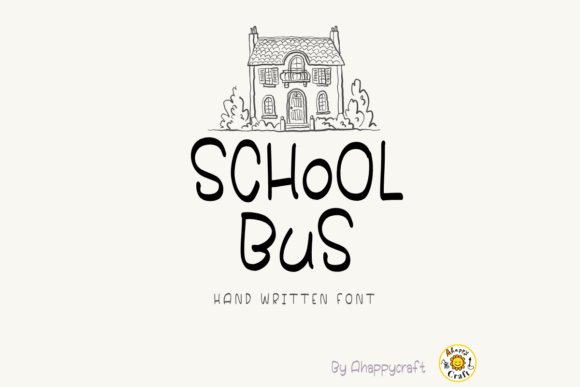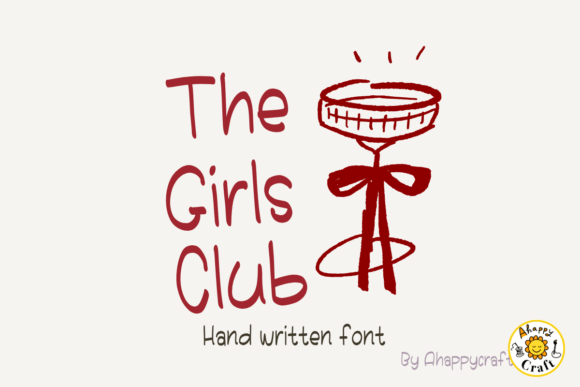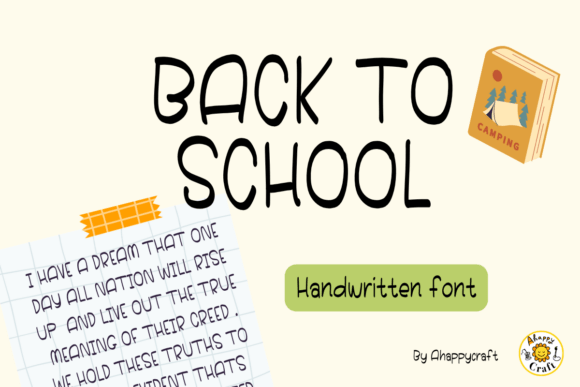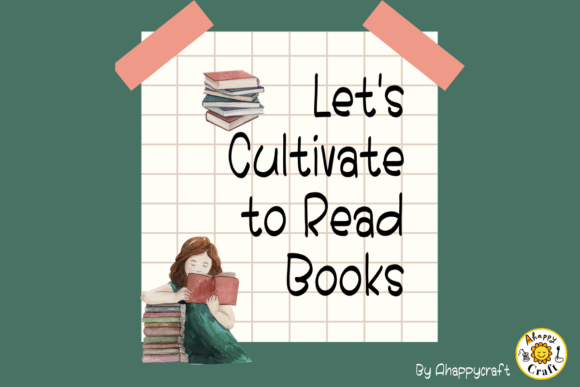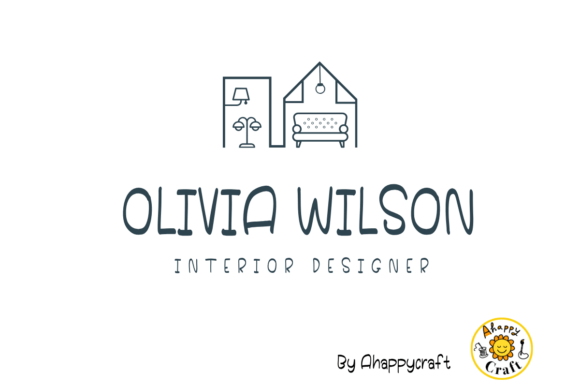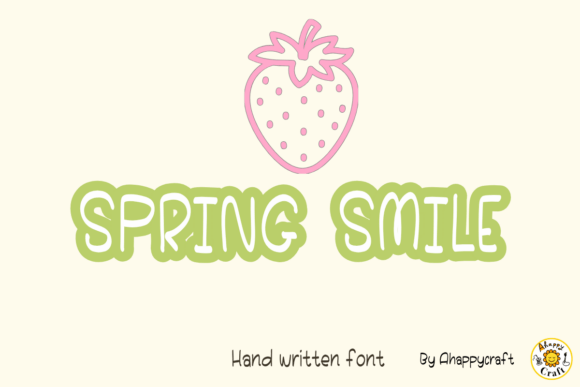
Discover the Joy of Handwritten Fonts
Do you remember the feeling of creating something with your own two hands? The thrill of watching a blank page transform into a work of art, filled with love and personality? For designers and creatives, this feeling is a constant source of inspiration, and it’s exactly what the Artist Day Font embodies.
Artist Day Font is a unique and lovable font style that adds a touch of handmade charm to any project. With its soft, inviting lines, it’s perfect for child-focused and educational projects, such as coloring pages, activity books, and classroom materials. Its versatility and ease of use make it a valuable asset for designers, who can rely on it to add a personal touch to their work.
Artist Day Font Key Features
- Unique Characteristics: This font features a unique, hand-drawn style with intricate details and subtle nuances, making it ideal for artistic and creative projects.
- Character Set: Artist Day Font includes a comprehensive character set, including uppercase and lowercase letters, numerals, punctuation marks, and special characters.
Designer Review: Artist Day Font
I recently had the chance to work with the Artist Day Font, and I’m excited to share my honest review.
- Unique Character Set: Artist Day Font has a distinct and eclectic character set that’s perfect for designers looking for something different.
- Beautiful Hand-Drawn Feel: The font has a beautiful hand-drawn feel that’s reminiscent of traditional art.
- Wide Range of Uses: From titles to body text, Artist Day Font can be used in a variety of projects, from branding to publishing.
- Limited Font Sizes: While the font looks great at larger sizes, it can become pixelated and hard to read at smaller sizes.
- Not Ideal for Small Text: Due to its unique character set, Artist Day Font may not be the best choice for small text or body copy.
The Artist Day Font is a beautiful and unique addition to any designer’s toolkit. While it has some limitations, it’s perfect for designers who want to add a touch of personality and whimsy to their projects. With its beautiful hand-drawn feel and wide range of uses, I highly recommend giving it a try.